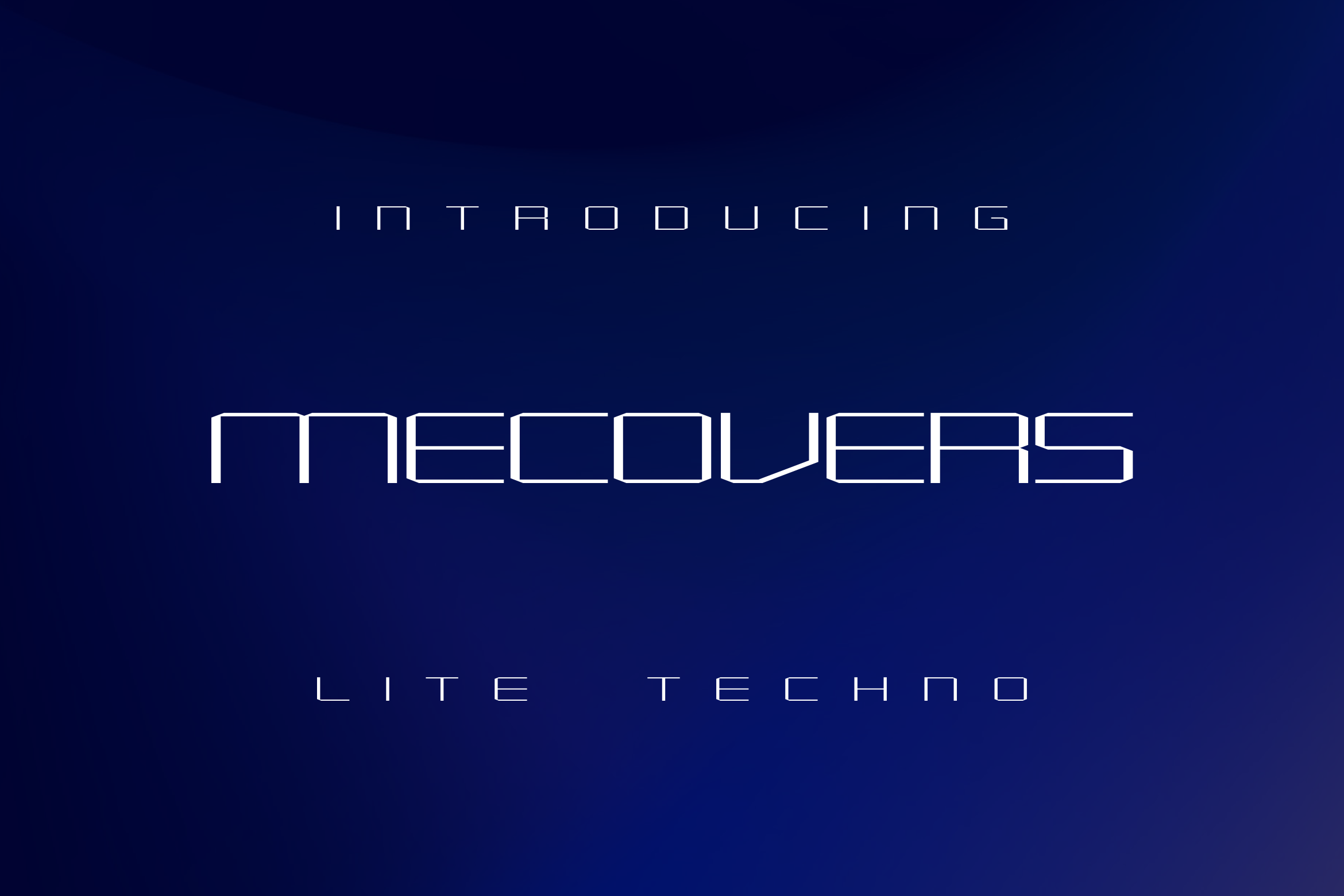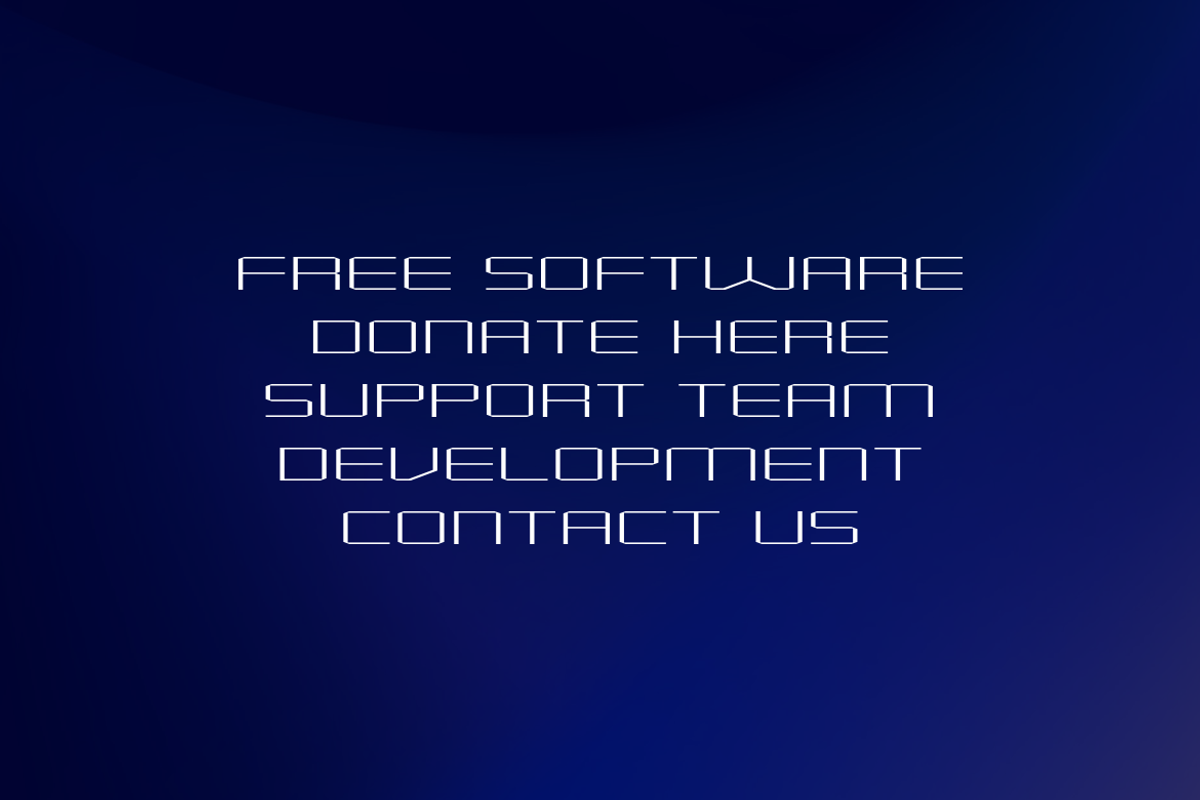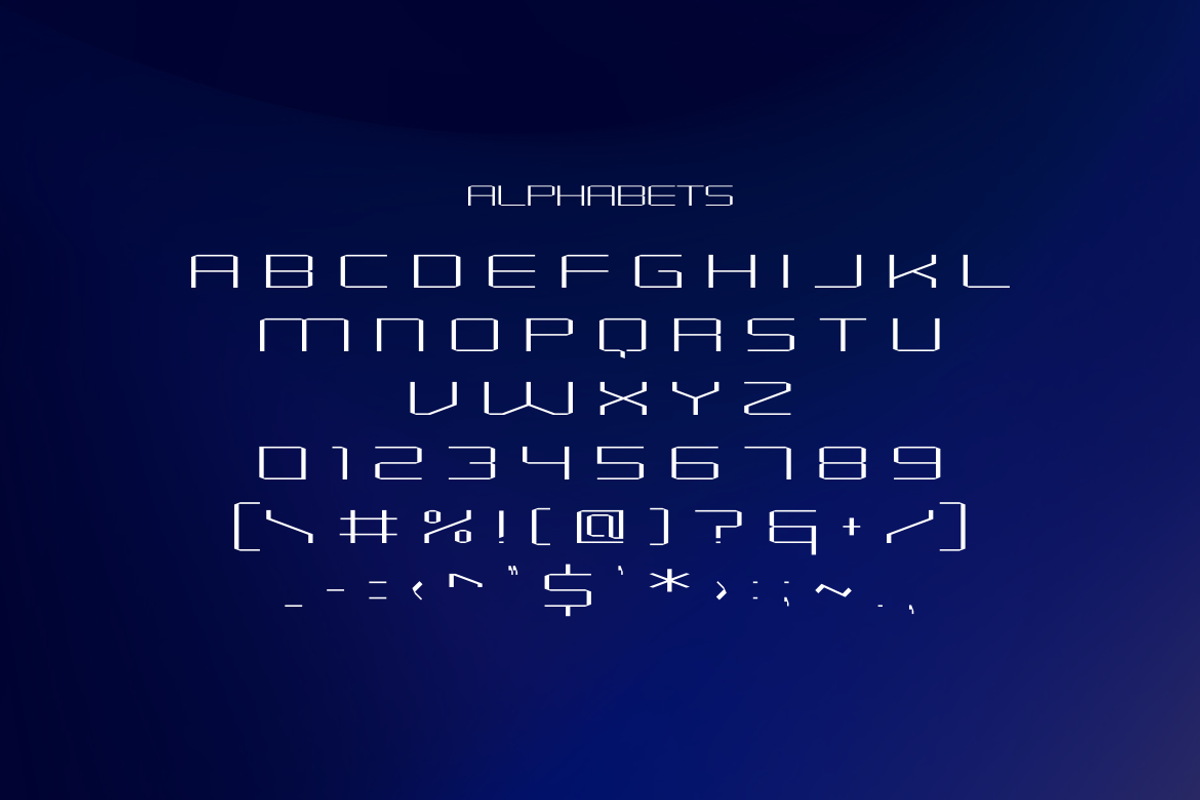
Mecovers Lite Techno Modeling Font
techno lite font which is suitable for the needs of websites engaged in marketing technology products, such as the world of games, software development teams, technicians or mechanics, or the world of trading. Fonts specially designed with this world add efficiency to website descriptions.